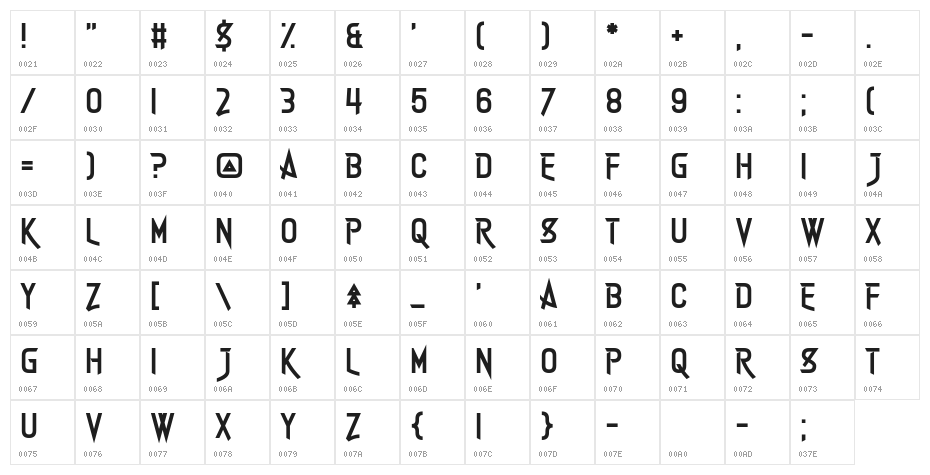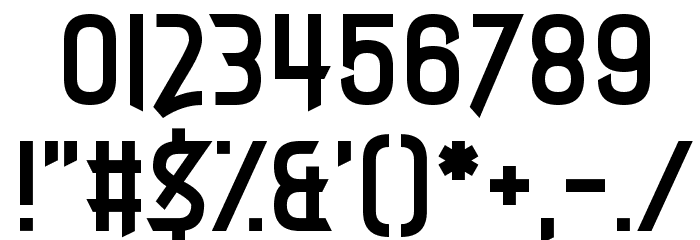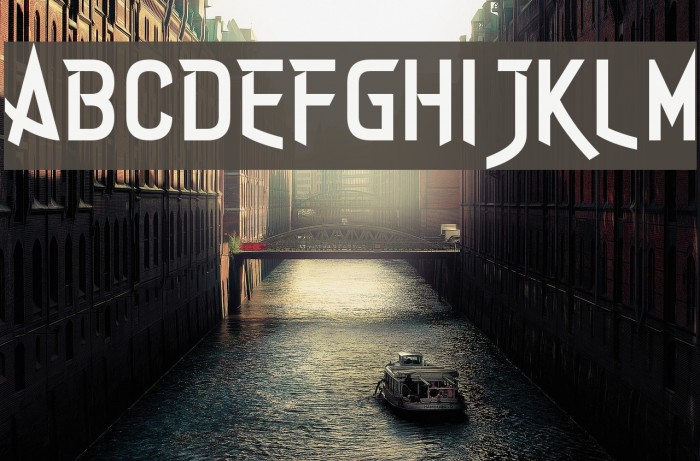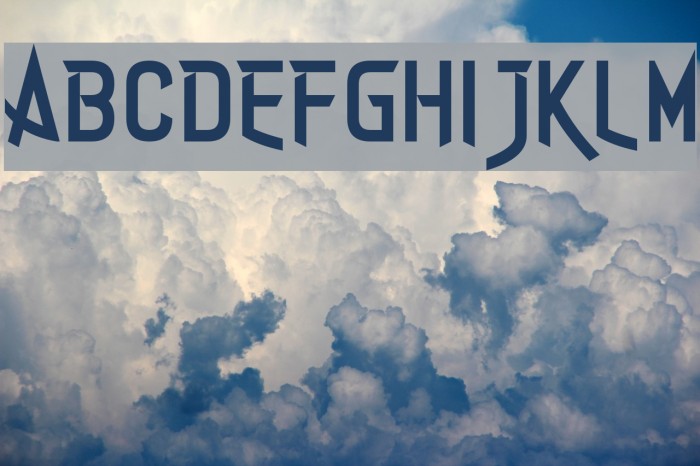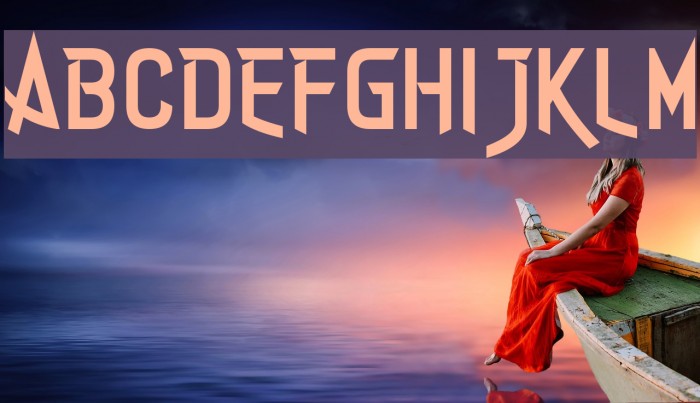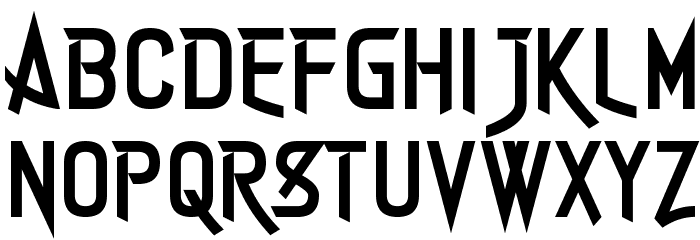
Winter Spice Cake Font
Winter Spice Cake Description
This font features a bold and angular design, characterized by sharp edges and a geometric structure. The uppercase letters exhibit a unique style with distinct diagonal cuts and pointed serifs, giving it a modern and edgy appearance. The numerals and special characters maintain this angular theme, ensuring consistency across all glyphs. The overall look is striking and attention-grabbing, suitable for projects that require a strong visual impact.
| Proposed Projects | Ideal for branding, poster design, and headlines where a bold statement is needed. |